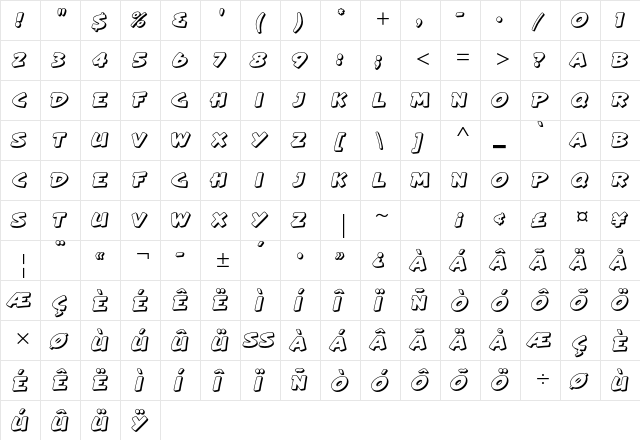
Artiste Std Regular
| Designer | Martin Wait |
Design Context for Artiste Std Typeface
Artiste Std is a composed and adaptable typeface that performs quietly and consistently across a wide range of design contexts.